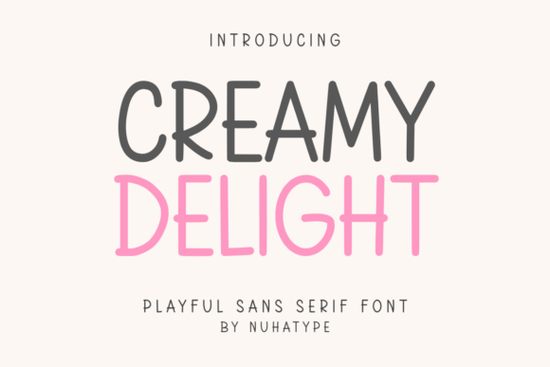
If you’ve ever searched for a font that blends the clean lines of a sans serif with the warmth of natural handwriting, this delicate sans serif deserves a close look. Creamy Delight Font fills that gap with its thin, approachable letterforms perfect for bringing a personal feel to digital and physical crafts alike.
What Makes Creamy Delight So Versatile for Crafters?
The light weight of Creamy Delight helps it disappear into a design while still being fully readable. Its minimalist structure leaves little room for clutter, so the text feels airy and modern. Because the strokes are consistent and the spacing is naturally wide, cutting machines like Cricut and Silhouette handle this typeface with less weeding trouble than many script fonts.
That blend of simplicity and hand-drawn charm works for a surprising range of surfaces. The letterforms stay crisp on coated paper, vinyl, iron‑on, and even lightly textured cardstock, making it a reliable choice when you’re experimenting with new materials.
Which Projects Benefit Most from a Thin Handwritten Sans?
If your work often sits at the intersection of neat organization and subtle personality, this font is a natural fit. The upright, slim characters add warmth without distracting from the layout, which is exactly what planners, bullet journals, and recipe cards need. Think about the places where a heavy or ornate font would overwhelm the page this style steps back just enough.
- Planners and agendas: Clean day‑to‑day headers, habit trackers, and section dividers.
- Sticker sheets and labels: Tiny text stays legible thanks to the open counters and gentle curves.
- KDP interiors and printable journals: A quiet, easy‑reading tone for low‑content books.
- Tumblers, mugs, and tote bags: Subtle personalization that pairs well with line art and soft watercolor backgrounds.
- Inspirational quote cards: The handwritten feel adds sincerity without looking rushed.
How Does Creamy Delight Compare to Other Delight Series Options?
Sometimes you need a touch more body to make a heading stand out, and that’s where Mocha Delight shines. It keeps the friendly, hand‑lettered spirit while offering a rounder, slightly bolder silhouette. The gently heavier sibling is a smart choice for journal titles or any spot where Creamy Delight might feel too faint.
For designs that require more visual weight and a straightforward sans‑serif build, Texas Bold steps in. Its sturdy shapes fill the space without turning playful. A strong, condensed alternative like this balances extremely well with thin script fonts on a t‑shirt graphic or a print-on-demand pillow.
If your aesthetic leans sleek and architectural, Nextera offers a completely different take. Its geometric precision gives off a clean, almost futuristic vibe. When you want to anchor a whimsical handwritten quote with something solid, its crisp structure makes a great companion without competing.
Is Creamy Delight Suitable for Print‑on‑Demand and KDP Interiors?
Yes, and this is one area where the thin stroke really proves its worth. In a low‑content book think lined journals, gratitude logs, or puzzle books the font stays present without screaming for attention. It prints clearly at 9–11 pt body sizes, and the slightly quirky letterforms keep the reading experience from feeling cold.
For purely digital projects, pairing the font with a neutral sans like Montserrat creates a lovely, professional contrast in lead magnets or social media templates.